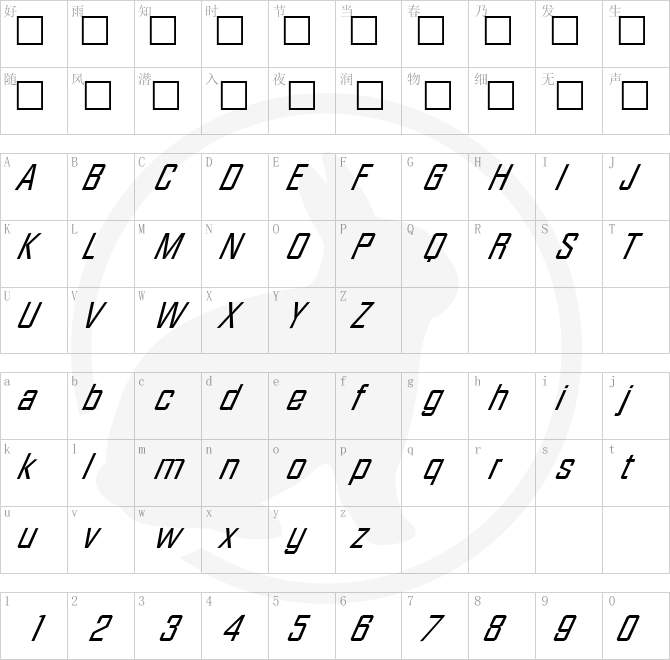
- Font Name:Facet-XXitalic
- Subfamily:Weatherly Systems, Inc. Facet-XXitalic Regular
- Full Name:Facet-XXitalic Regular
- PostScript:Facet-XXitalic
Facet-XXitalic-Regular.ttf is a very beautiful artistic font, Facet-XXitalic-Regular.ttf is widely used in the design and printing of various books and pictures,Facet-XXitalic-Regular.ttf has a strong visual impact,Facet-XXitalic-Regular.ttf is a commonly used font in newspapers, magazines and books, and is used in posters, e-commerce Poster design, store design, logo design, font design and other fields.Facet-XXitalic-Regular.